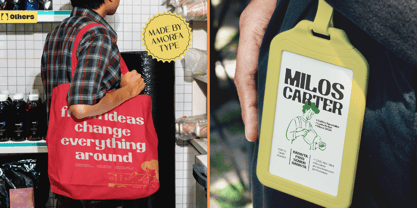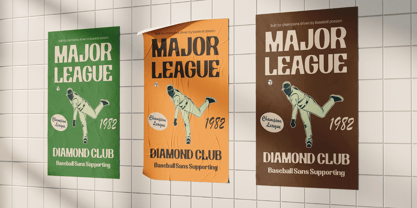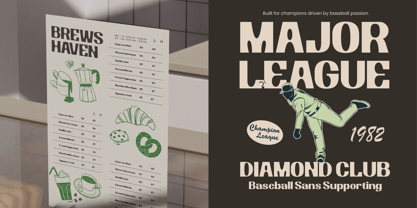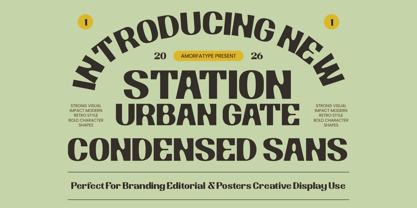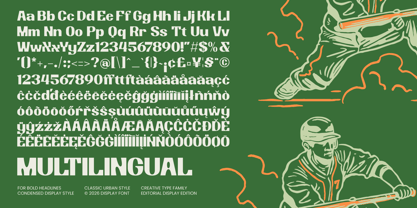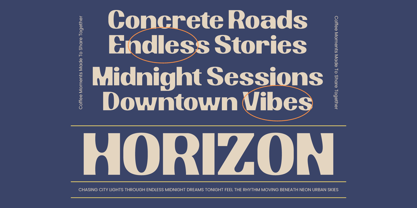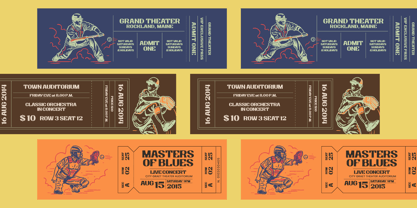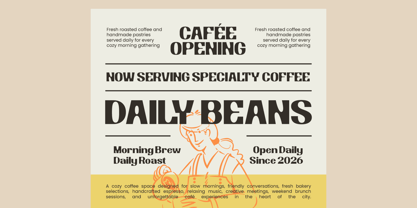
Station Urban Gate
Die Schriftfamilie Station Urban Gate wurde von Shiddiq Roihan entworfen und von Amorfa Type veröffentlicht. Station Urban Gate enthält 2 Stile und Familienpaketoptionen. Mehr über diese Familie
Station Urban Gate is a bold condensed sans serif display font designed with strong urban character, retro athletic influence, and impactful headline proportions. Combining vintage condensed typography with modern street-inspired aesthetics, this typeface delivers a confident visual presence perfect for branding, posters, signage, editorial layouts, café menus, packaging, and creative display design.
Built with narrow letterforms, bold structure, and clean geometric rhythm, Station Urban Gate captures the energy of classic sports graphics, urban posters, and retro advertising typography while remaining modern and highly versatile for contemporary visual projects.
Its condensed construction allows designers to maximize space without losing readability or visual power, making it ideal for large-scale typography and statement-driven compositions.
Station Urban Gate blends retro condensed display aesthetics with modern urban typography, creating a font that feels bold, energetic, and visually commanding.